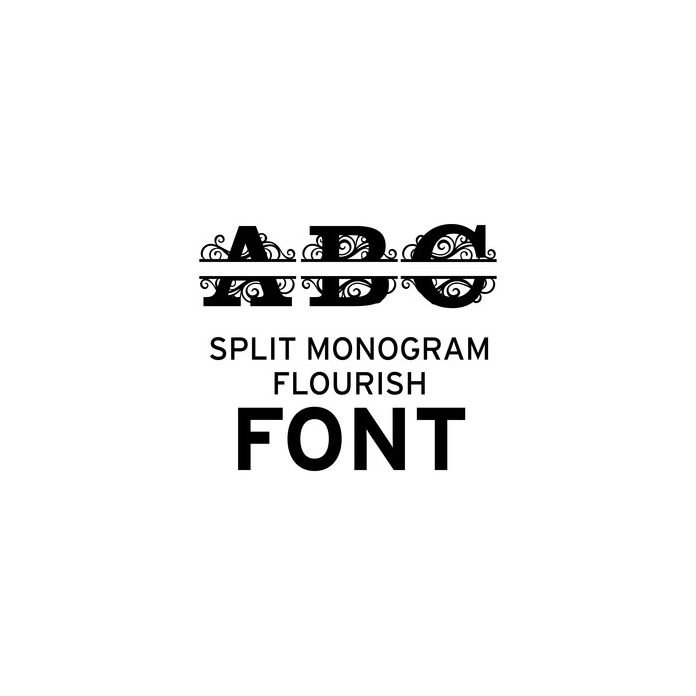
Split Monogram Flourish Font
With this font you can simply type the split monogram letters that you need. Make a quick and easy vinyl or heat transfer project with this gorgeous font.